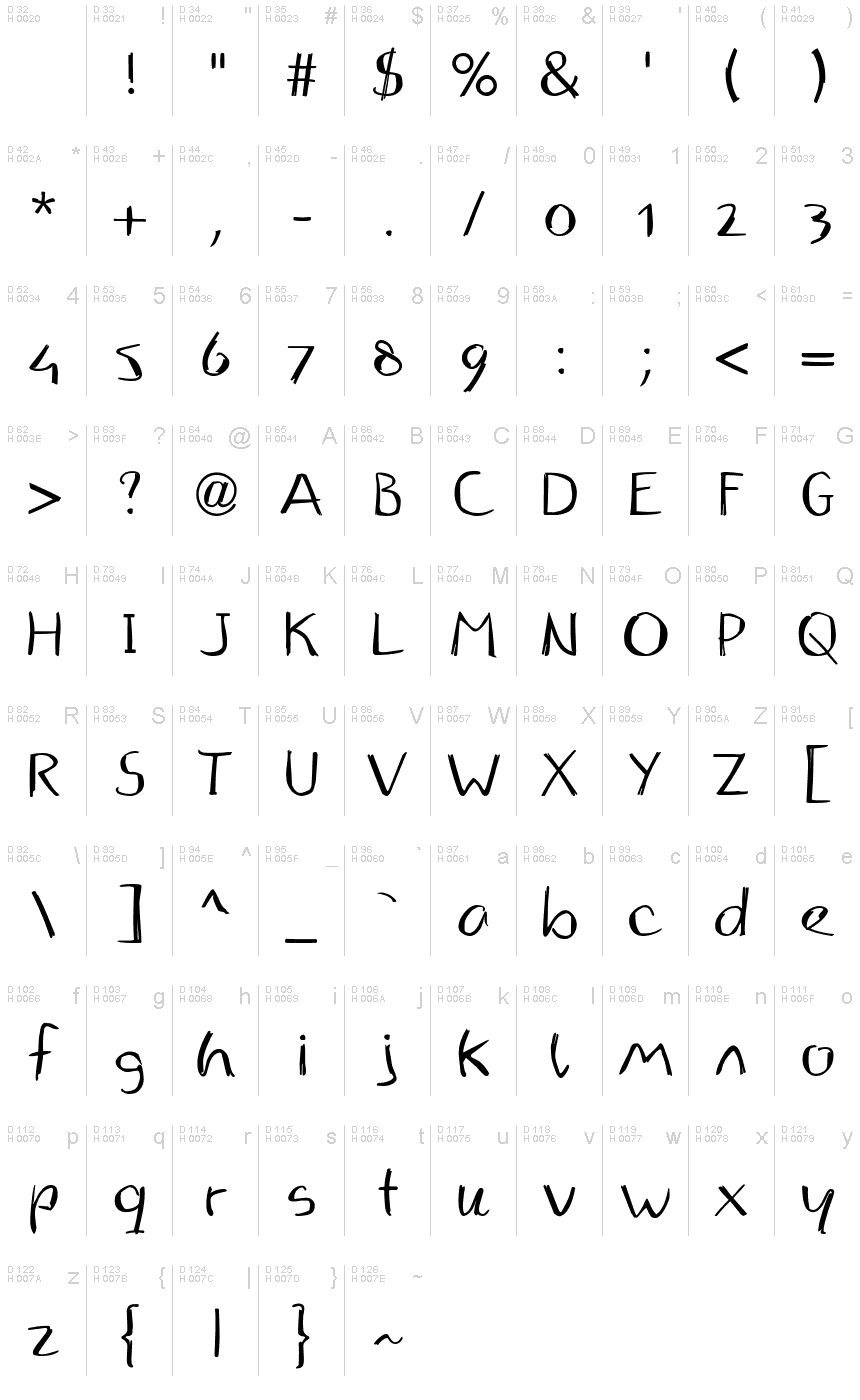
Ape Handwriting, designed by apeswithsign, is a charming semi-light handwritten font that adds a playful touch to any project.
Its organic strokes and unique character make it perfect for children's books, greeting cards, and personalized crafts. The whimsical nature of Ape Handwriting can also bring a delightful twist to website headings, blog headers, and social media graphics.
Whether you're aiming for a fun and lighthearted vibe or simply want to add a touch of creativity to your designs, Ape Handwriting is the ideal choice.